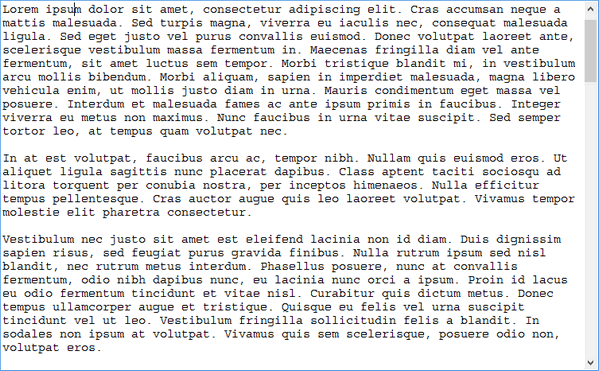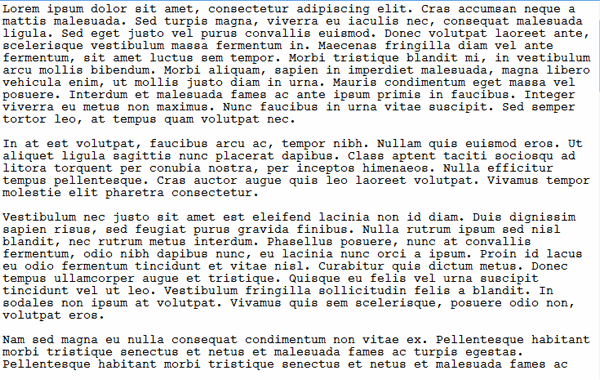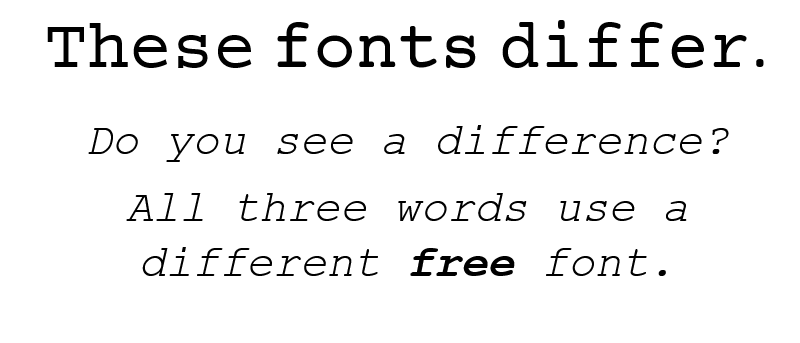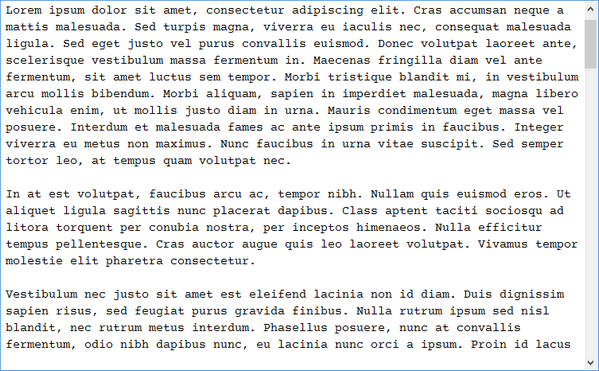
Three Free Fonts to Spice Up Courier
Courier is a universal standard, resisting an immediate link to a single industry. Whether used in a budding scriptwriter’s manuscript, a coder’s preferred IDE, or a student’s desperately-lengthened essay written only hours before a due date, it is likely that you have seen and used Courier before.
Courier New is by far the most popular variant of the world’s favourite monospace typeface, and for good reason: it is the version included in both Windows and Mac OS X, and it is the only version available in a word processor. We round up three free versions of Courier, all of which can be used to spice up your working environment right now. While all three are highly-polished fonts, our goal is not necessarily to find a ‘best’ font, but one which conforms most closely to Courier New’s metrics.
Courier for the People
Despite the long name, Courier for the People (CFTP)’s own mission statement gives clear insight into its goal: “Courier. Just better.” Consider it a remastered version of the font intended to right the perceived wrongs of Courier New, and you’re not far off the mark. Immediately, the font is thicker and more inviting on-screen. Though it takes some time to notice, the pagination is identical to traditional versions of Courier too, meaning it should be acceptable in professional environments.
As the creators themselves affirm, the font comes with a true italic, unlike the core fonts in the two major operating systems. Better yet is the fact the font’s designer is relaxed about usage of the font, professing that he “doesn’t care what you do with it.” It comes as a surprise given the highly professional and polished websites that most font foundries have for themselves, and is rather inviting compared to long streams of legalese about appropriate usage of the chosen font.
Dark Courier
A font with something of a history, and originally distributed by Hewlett-Packard many years ago. Dark Courier‘s main goal was to make Courier New more readable by making it heavier and darker on the page. The slightly darker font gives greater readability on account of the fact that it contrasts with the stark white background of a page more readily.
Whereas CFTP sought to reinvent Courier in its own “improved” fashion, Dark Courier does not take the same approach. It is purely a darkened version of the now-ubiquitous Courier New, and so comes with the same foibles, including its forebear’s lack of a true italic style. While font designers may be disappointed by this, it is perhaps the most faithful font with regards to following original Courier styling. Writer Roland Stroud has expressed a similar feeling about Dark Courier, rating it above all other variants he tested in a nine-page essay written in 2009. Thus, it is arguably the best font for anyone seeking to improve upon Courier New in the most subtle way possible.
Courier Prime
Courier Prime is the result of work for Quote-Unquote Apps. Given founder John August’s work as a screenwriter, Prime’s goal was to better suit this purpose. Nevertheless, it is an incredibly pleasant font to work with, and also totally free. Like Courier for the People, Prime features a true italic, but differs most from the standard Courier New appearance. Therefore, it may not be for sticklers for tradition – which, of course, is totally fine.
Not only is Prime free to download and use, it is also the default font in the Fountain screenplay editor (which is exclusive to the Mac). Therefore, those who have dabbled in this creative field may already have some knowledge of Courier Prime, and what it does differently from its competition. While we at Make Tech Easier like Prime, and would have difficulty picking a preferred free variant of the font, we confess that Prime does not seem to conform to the same spacing and guidelines as Courier New; given that our goal was to conform to Courier New’s standard, it may not be a perfect substitute, but would certainly suit as a complete replacement.
Which should I use?
All three fonts look attractive on-screen, but Dark Courier emerges as our clear winner with regards to conforming to Courier New’s presence on-screen. It really is just a darker version of the existing font, which we see no issue with. This does not mean the other two fonts should be sidelined, simply that they are perhaps slightly less subtle twists on the classic Courier New. All three fonts are totally free to use, and as such, there is little reason to relegate yourself to only trying one.